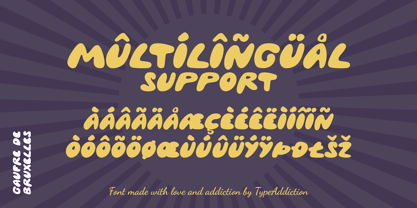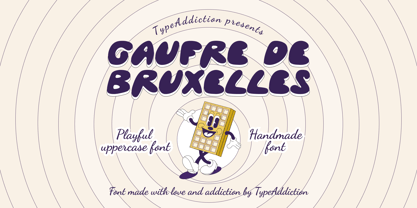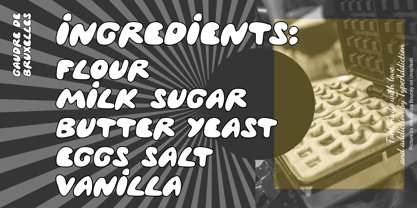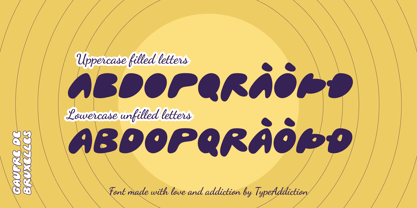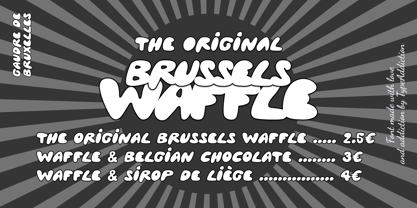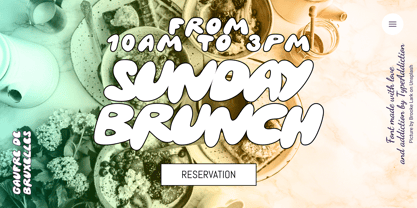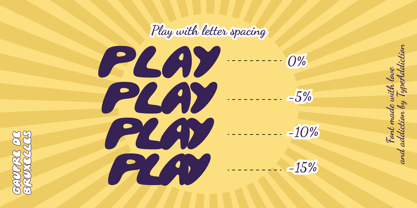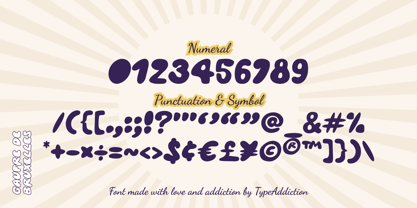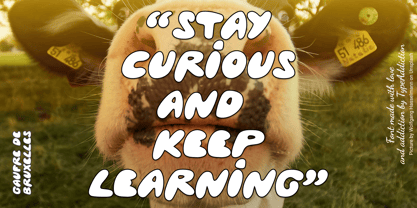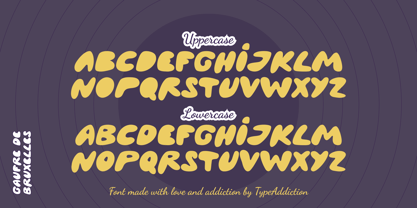
Gaufre de Bruxelles
by TypeAddiction
The Gaufre de Bruxelles Font Family was designed by Virginie Mangelinck and published by TypeAddiction. Gaufre de Bruxelles contains 1 styles. More about this family
TypeAddiction presents “Gaufre de Bruxelles”, a playful handmade uppercase font. Uppercase letters have filled letters (A, B, D, O etc) and the lowercase letters have unfilled letters. "Gaufre de Bruxelles" means a Brussels waffle in English. The Brussels waffle is a rectangular-shaped waffle and is a Belgian culinary speciality. The characters of the font were inspired by the waffle dough and more specifically the shape that the dough takes when it is poured into the waffle iron.